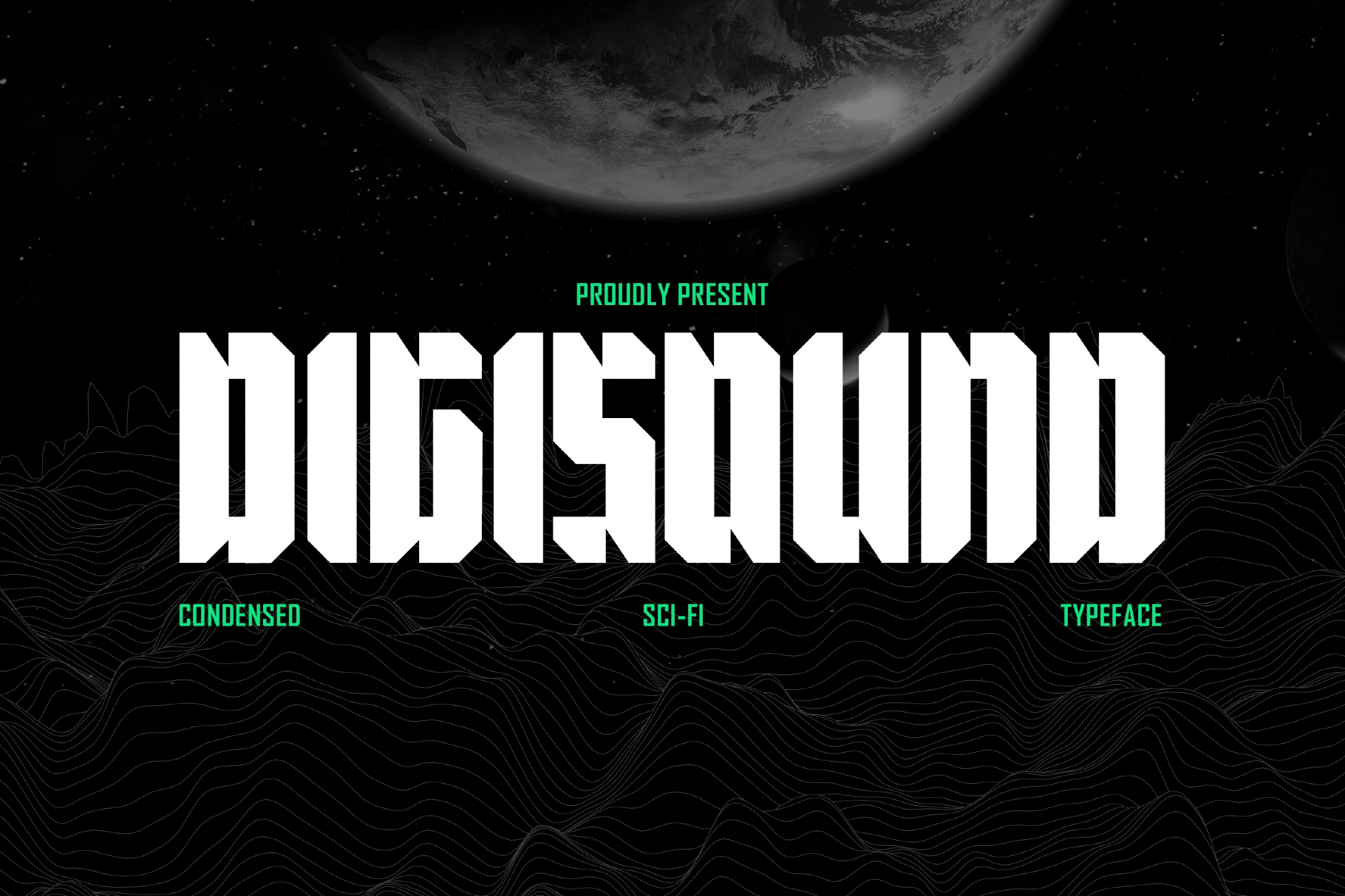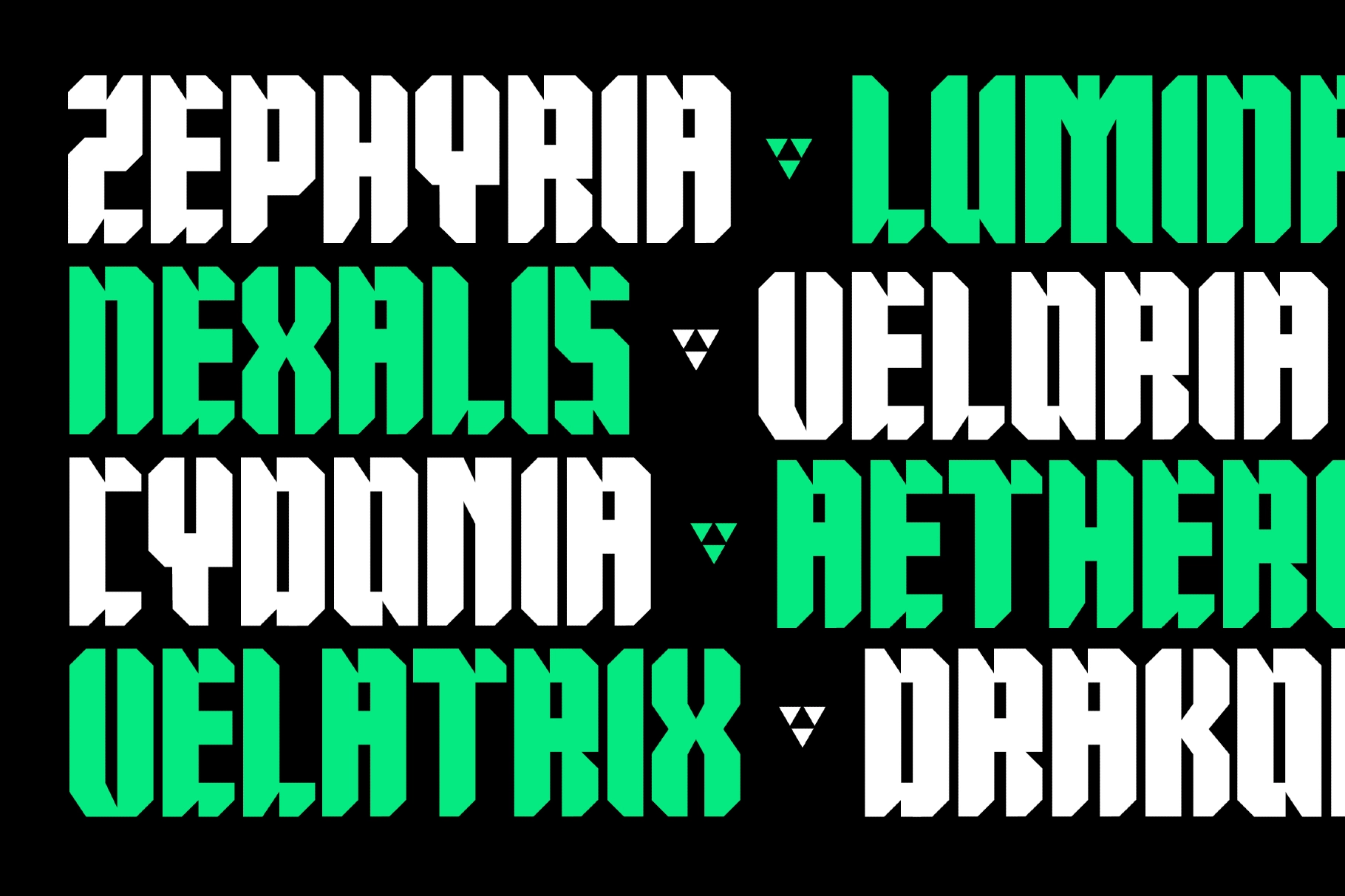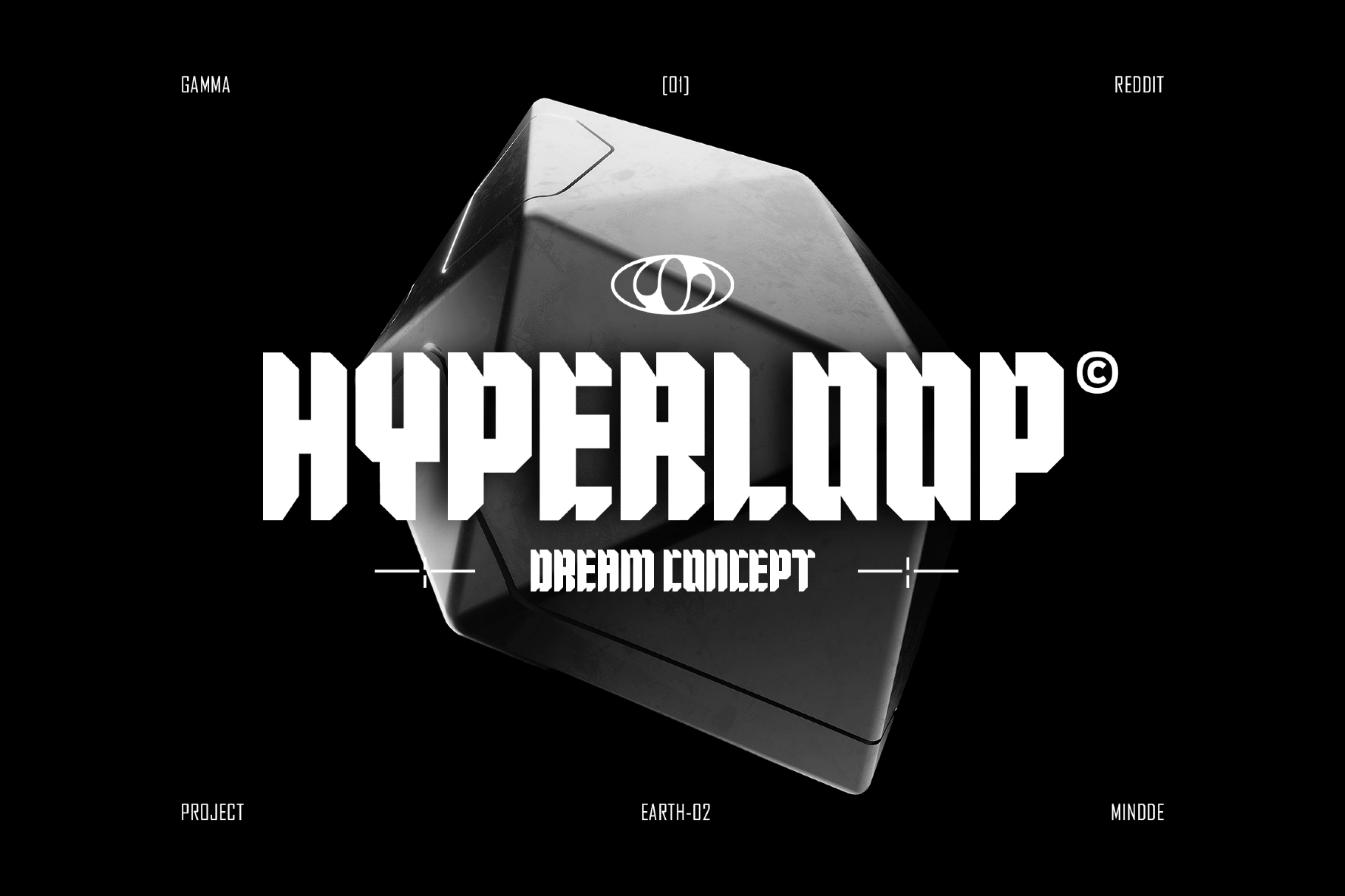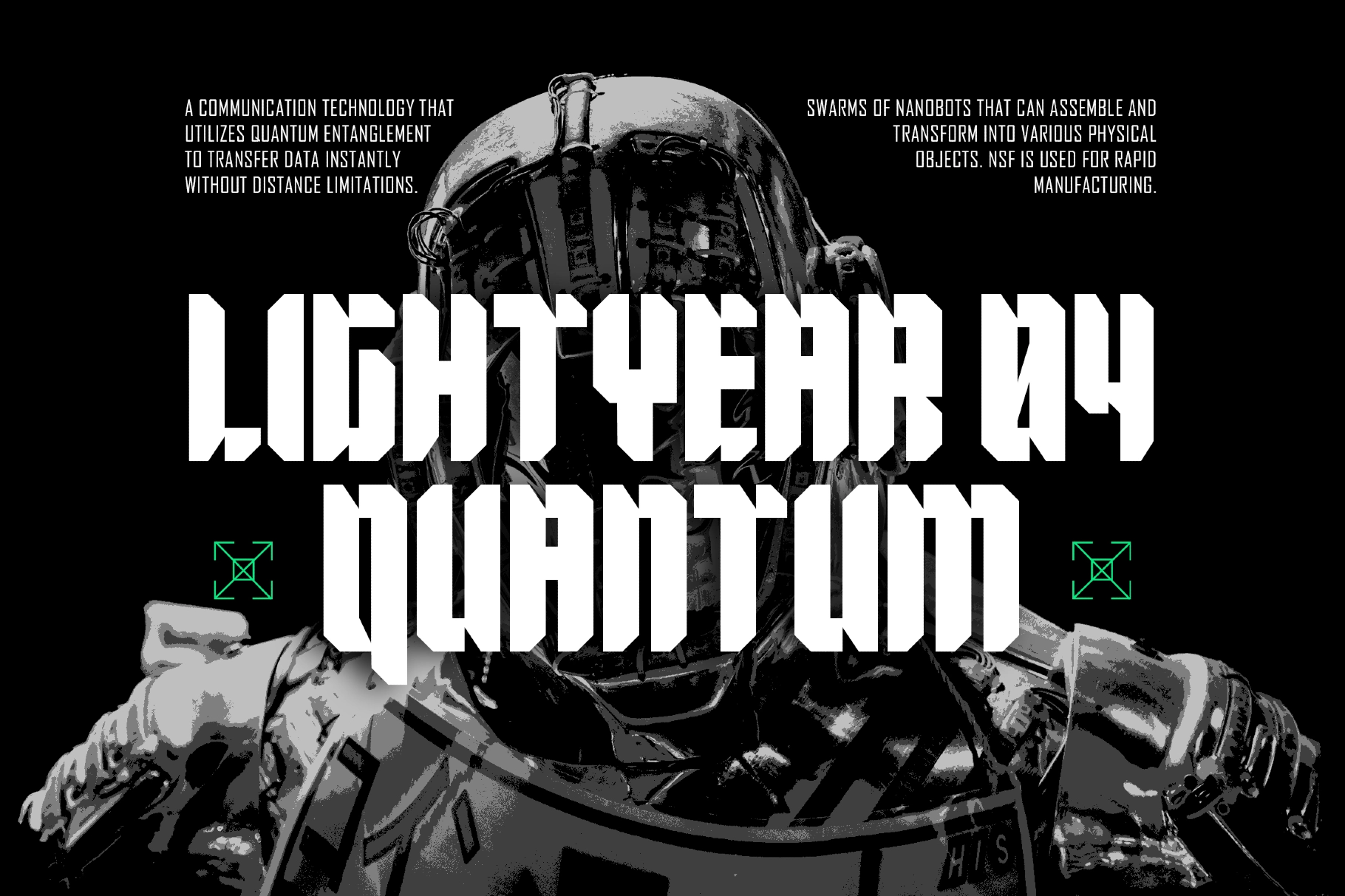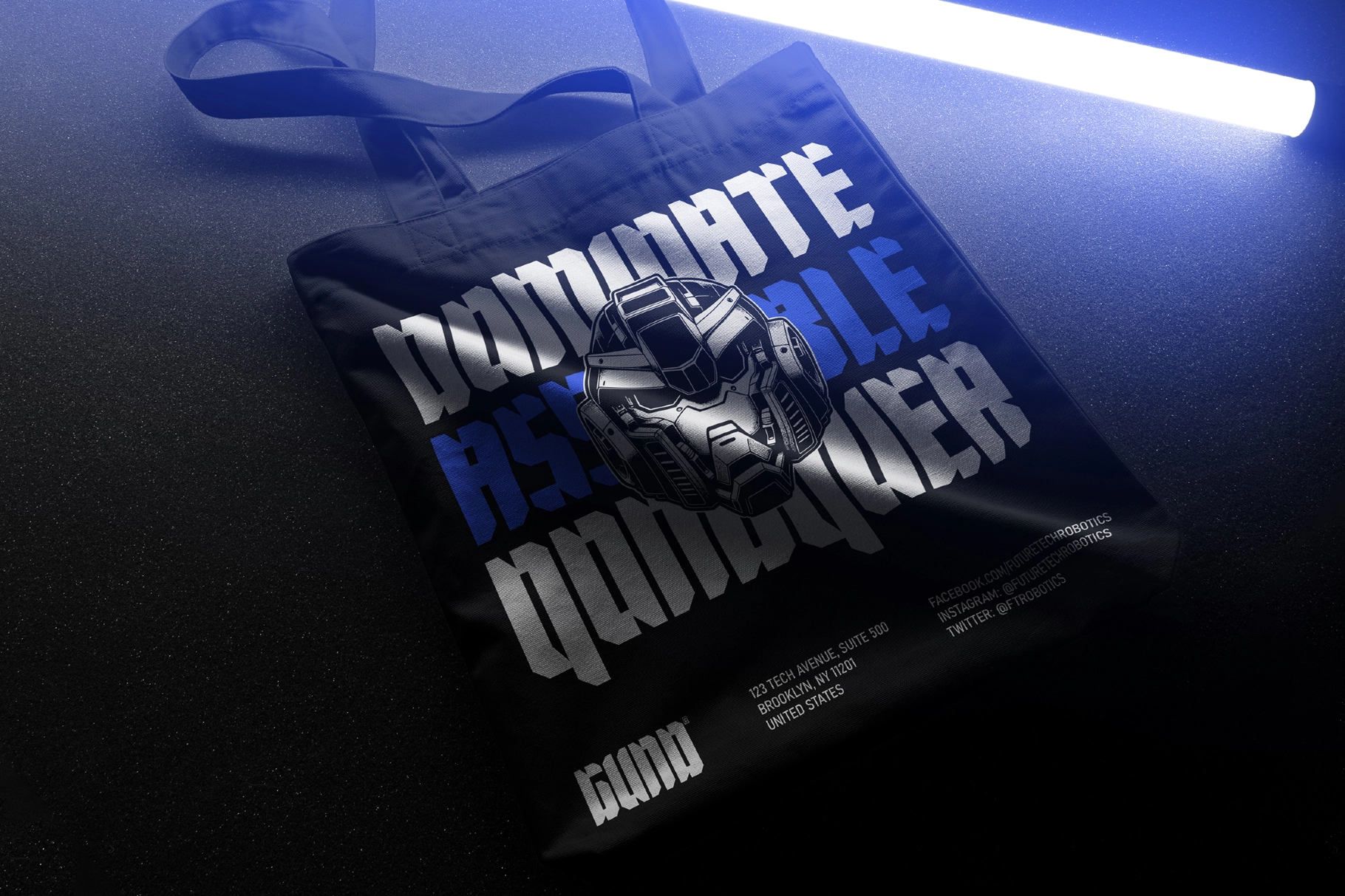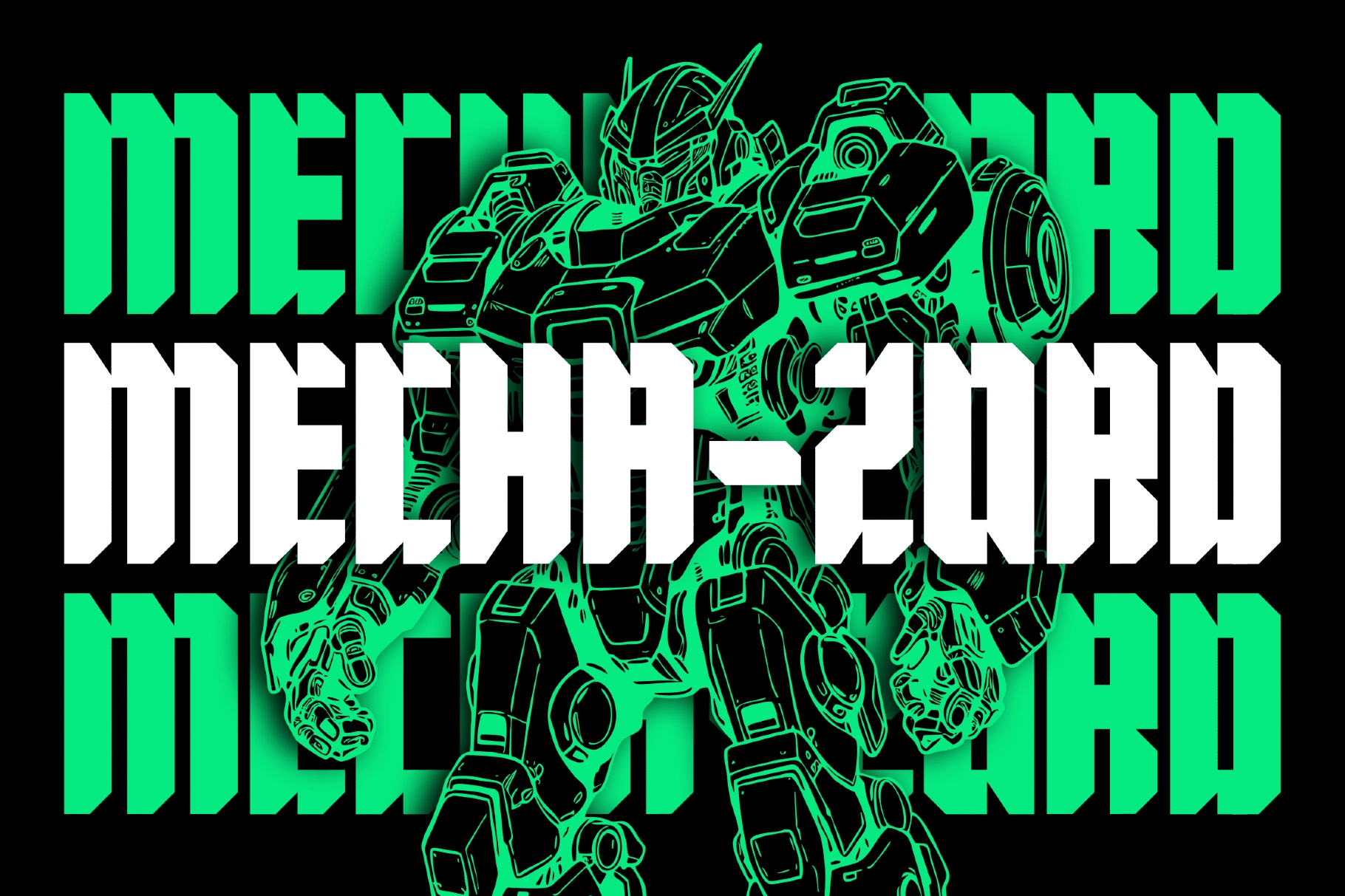
Digisound - Modern Bold Condensed Sans
Digisound
Digisound - Modern Bold Condensed Sans is a striking futuristic typeface designed with a bold condensed structure and distinctive reverse contrast. Its sharp geometry and high-impact letterforms create a powerful sci-fi aesthetic that instantly elevates any modern design.
Perfect for tech branding, gaming visuals, posters, movie titles, UI interfaces, esports graphics, and futuristic logos, Digisound delivers a clean yet aggressive visual presence. Its condensed proportions make it ideal for strong headlines while maintaining clarity and a cutting-edge digital feel.
- Uppercase characters
- Bold condensed style with reverse contrast
- Modern sci-fi and tech-inspired design